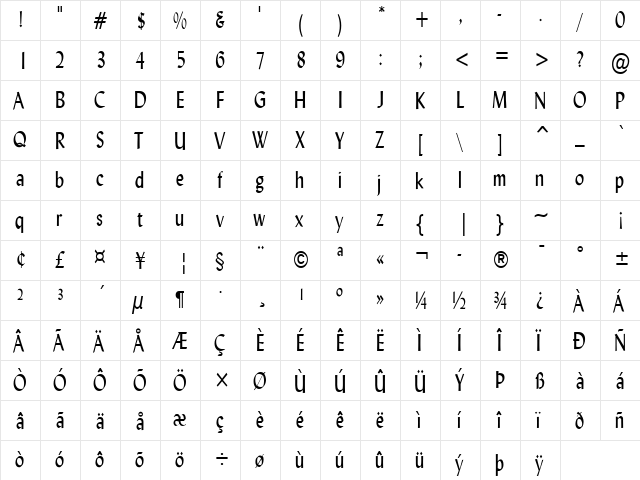
Lynda-Condensed Normal
Design Context for Lynda-Condensed Typeface
Lynda-Condensed offers clean, dependable letterforms without strong stylistic allegiance, making it a practical choice for designers who need flexibility. Its narrow stance lets it pack a punch even in space-constrained designs.
Pro Tip: Use Lynda-Condensed in both headline and body roles to test its range before committing to a single application.